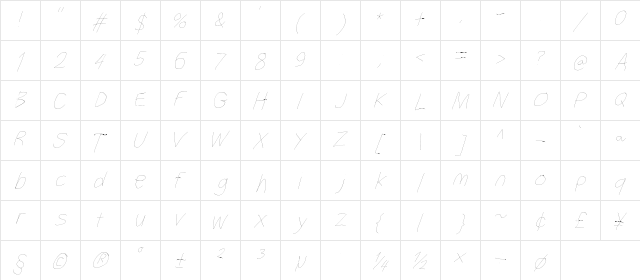
Filament Serie One
Design Context for Filament Serie Typeface
Filament Serie offers clean, dependable letterforms without strong stylistic allegiance, making it a practical choice for designers who need flexibility.